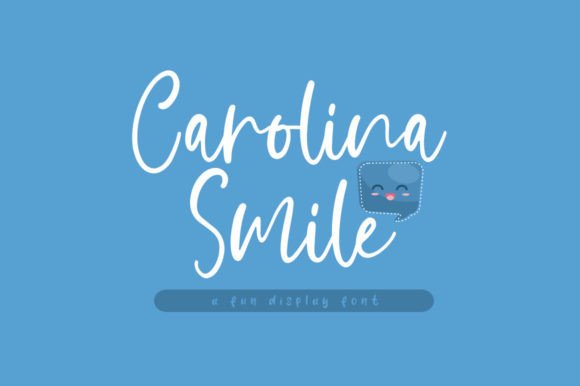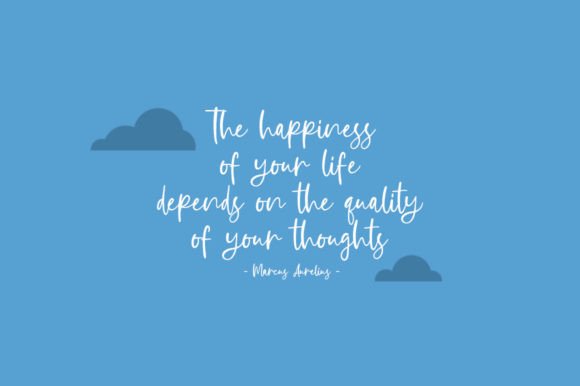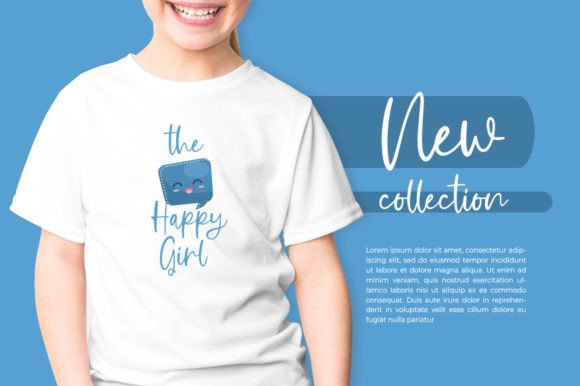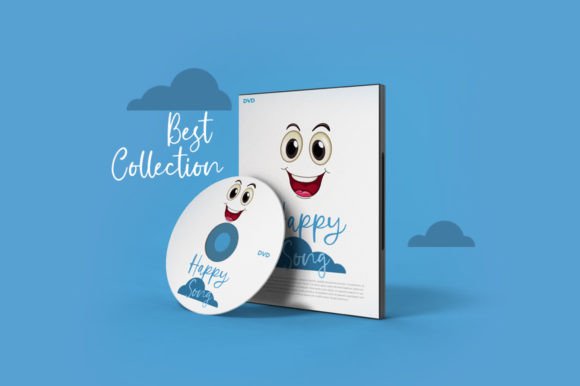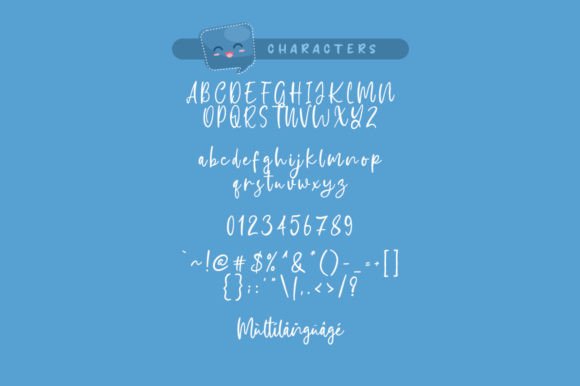
Carolina Smile Font
About Carolina Smile Font
Carolina Smile is a fun and friendly calligraphy script font. Whether you use it for cartoon-related designs, children’s games, or just any creation that requires a playful touch, this font is the perfect choice for your designs!